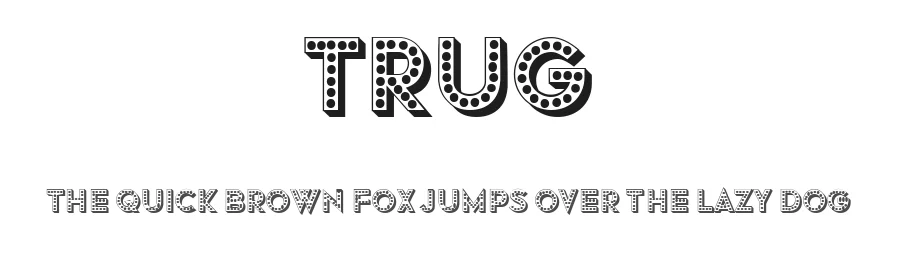
About PF Scircle1 Font
PF Scircle1 Font is a decorative font that shines as a display or heading face. Pair it with a clean sans-serif or serif font for body text β the contrast creates a clear hierarchy while the two styles stay balanced and easy to read.
PF Scircle1 Font
by Planck Foam Scholarly Dragon Press
PF Scircle1 Font is a decorative typeface by Planck Foam Scholarly Dragon Press, ideal for logos, invitations, branding, and creative projects.